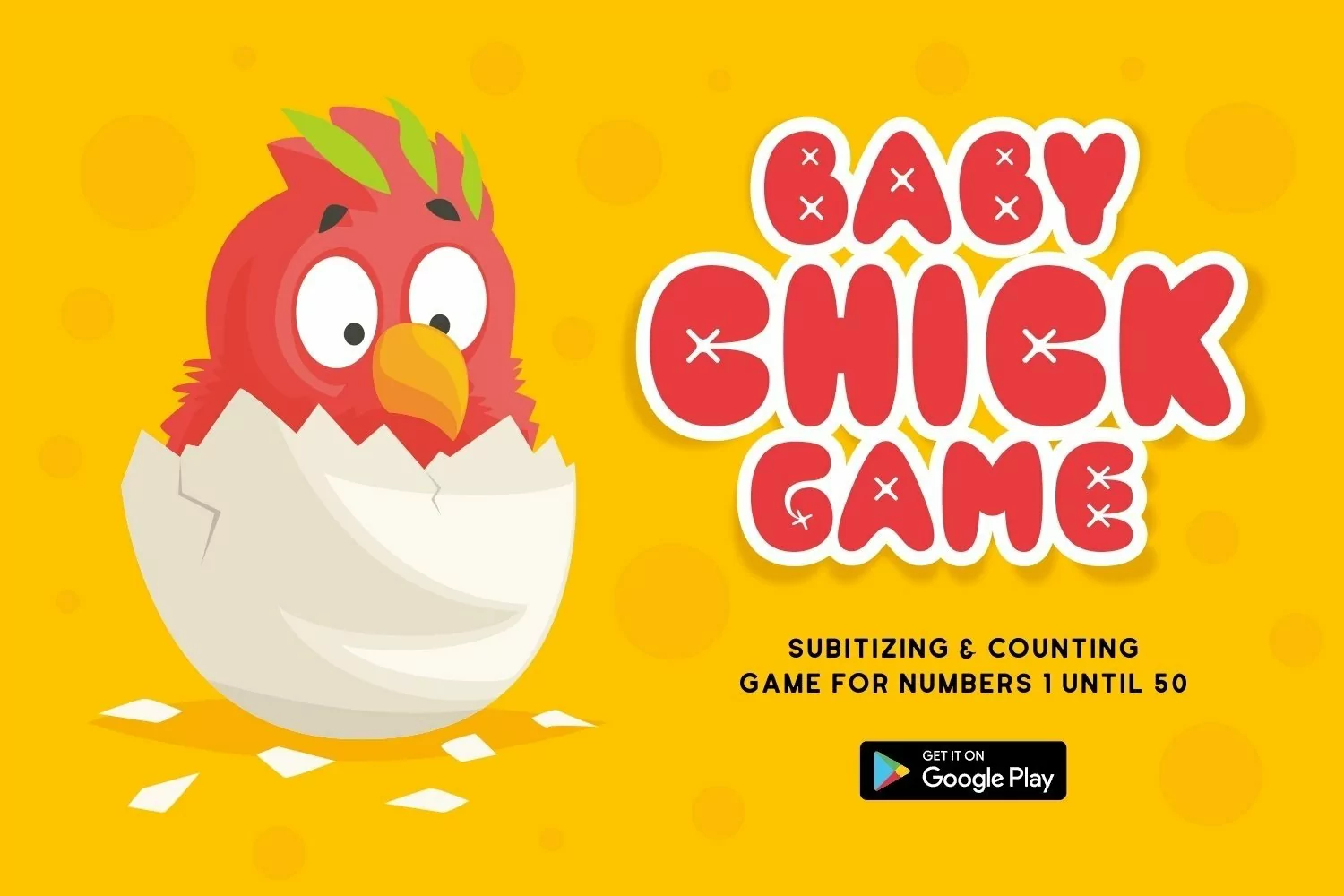
Roller Coaster is san serif display come with cute themes. We wanted to create the most unique characters. It matches applies in some designs such as the logotype, brand, packaging, quotes, cute poster, kids shirt, cover book, birthday invitation and more custom design. The features uppercase, lowercase, numeral, punctuation & symbol, multilingual support, PUA encoded (fully accessible without additional design software).